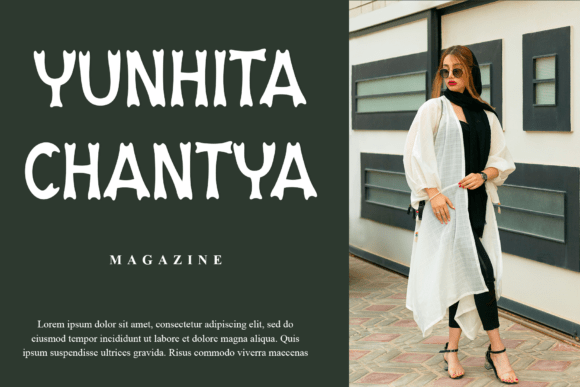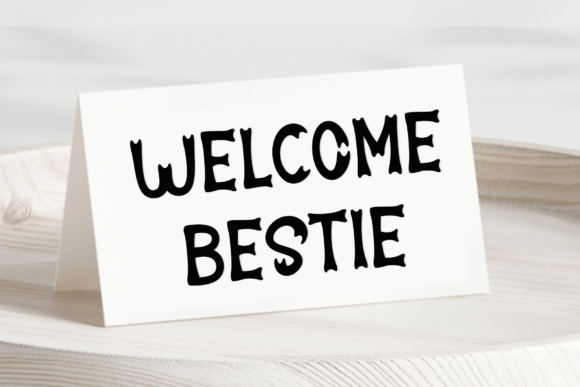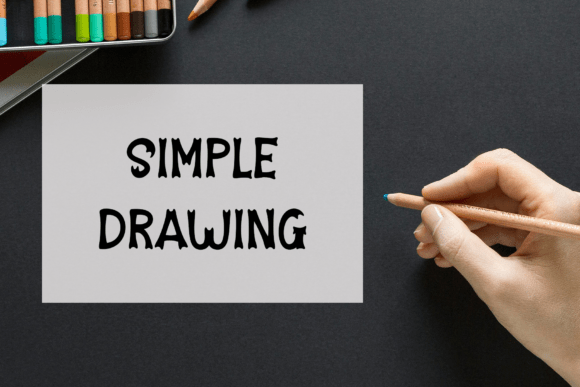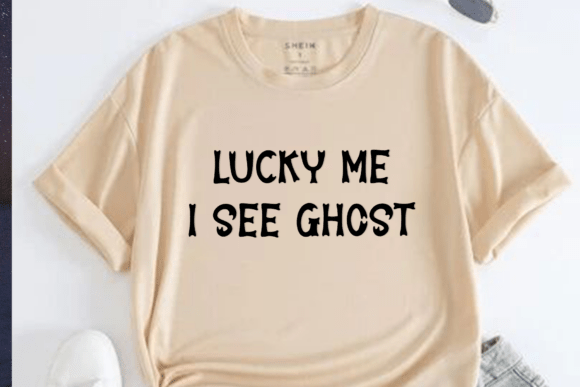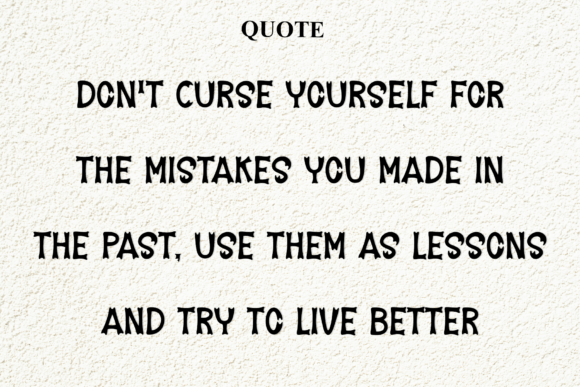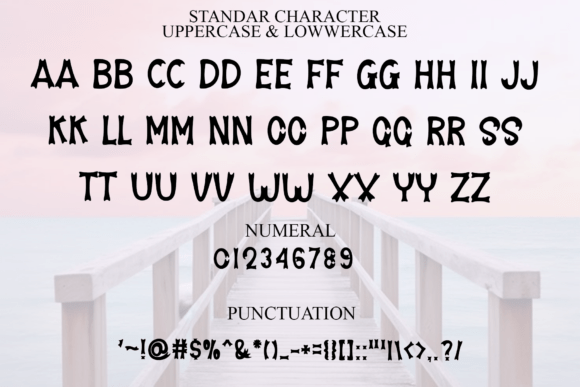
Introducing Friday Summer Font: The Perfect Holiday Typeface
Are you looking for a font that embodies the spirit of the holiday season? Do you want to add a touch of magic to your designs and make them stand out? Look no further than Friday Summer Font, a festive and merry typeface that’s perfect for greeting cards, gift tags, and holiday-themed projects.
What Makes Friday Summer Font So Special?
Friday Summer Font is a decorative typeface that’s designed to capture the whimsy and enchantment of the holiday season. With its intricate details and playful flair, this font is sure to add a cheerful and nostalgic ambiance to your words. Whether you’re designing greeting cards, gift tags, or holiday-themed projects, Friday Summer Font is the perfect choice.
Key Features of Friday Summer Font
- Decorative Elements: Friday Summer Font features decorative elements that add a touch of magic to your designs. From intricate swirls to playful flourishes, this font is sure to make your typography shine.
- Whimsical Flair: This font has a whimsical flair that’s perfect for holiday-themed projects. Whether you’re designing for Christmas, Halloween, or any other holiday, Friday Summer Font is sure to add a playful touch.
- PUA Encoded: Friday Summer Font is PUA encoded, which means you can access all of the amazing glyphs and ligatures with ease. This makes it easy to use the font in your designs and ensures that you can take full advantage of its features.
Uses for Friday Summer Font
Friday Summer Font is a versatile typeface that can be used in a variety of ways. Here are some ideas to get you started:
- Greeting Cards: Use Friday Summer Font to create festive and merry greeting cards for any holiday. Whether you’re designing for Christmas, Easter, or Halloween, this font is sure to add a touch of magic to your cards.
- Gift Tags: Add a personal touch to your gifts with Friday Summer Font. This font is perfect for creating custom gift tags that are sure to impress.
- Holiday-Themed Projects: Whether you’re designing for a holiday market, creating holiday-themed decorations, or making holiday crafts, Friday Summer Font is the perfect choice.
Tips for Using Friday Summer Font
Here are some tips for getting the most out of Friday Summer Font:
- Experiment with Sizes: Friday Summer Font looks great in a variety of sizes. Experiment with different sizes to find the one that works best for your project.
- Pair with Other Fonts: Friday Summer Font pairs well with other fonts. Try pairing it with a sans-serif font for a fun and playful look.
- Use the Glyphs and Ligatures: Don’t forget to take advantage of the glyphs and ligatures that come with Friday Summer Font. These can add an extra touch of magic to your designs.
Friday Summer Font is a festive and merry typeface that’s perfect for adding a touch of magic to your designs. With its decorative elements, whimsical flair, and PUA encoding, this font is sure to make your typography shine. Whether you’re designing greeting cards, gift tags, or holiday-themed projects, Friday Summer Font is the perfect choice. So why wait? Download Friday Summer Font today and start creating your own magical designs!